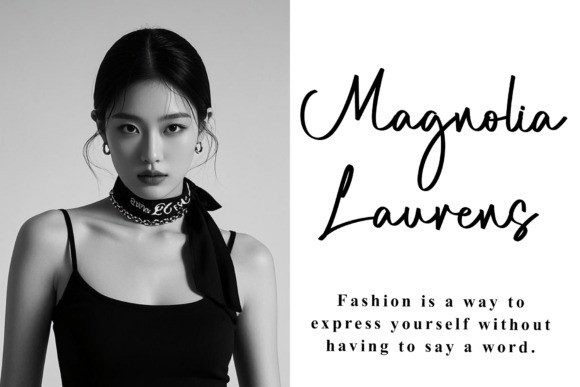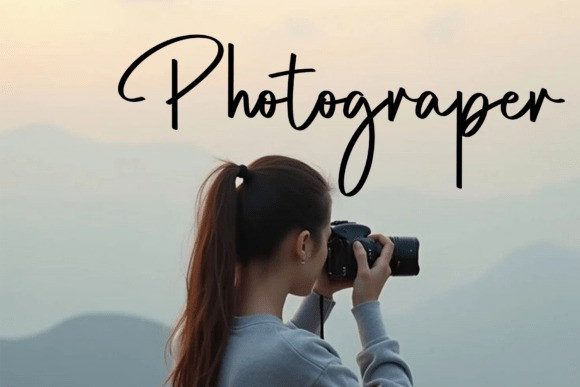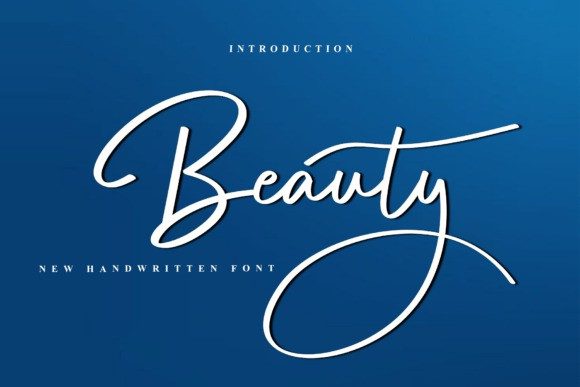
Beauty Handwritten Font is a luxurious handwritten script font that fuses calligraphic grace with whimsical elegance. Its flowing swashes, delicate ligatures, and refined letterforms conjure a sense of seasonal enchantment—capturing the quiet beauty of winter with festive charm.
The font features high-contrast strokes and fluid curves that bring a romantic, decorative flair to any design. From holiday cards and wedding invitations to premium packaging, branding, and editorial headlines, Babydoll adds sophistication without sacrificing legibility.
Ornate yet versatile, it’s designed to elevate visual storytelling and infuse your work with emotion, warmth, and timeless style. Ideal for creatives seeking a blend of elegance and expressiveness, Babydoll offers a distinctive touch for any project where beauty and nuance matter.